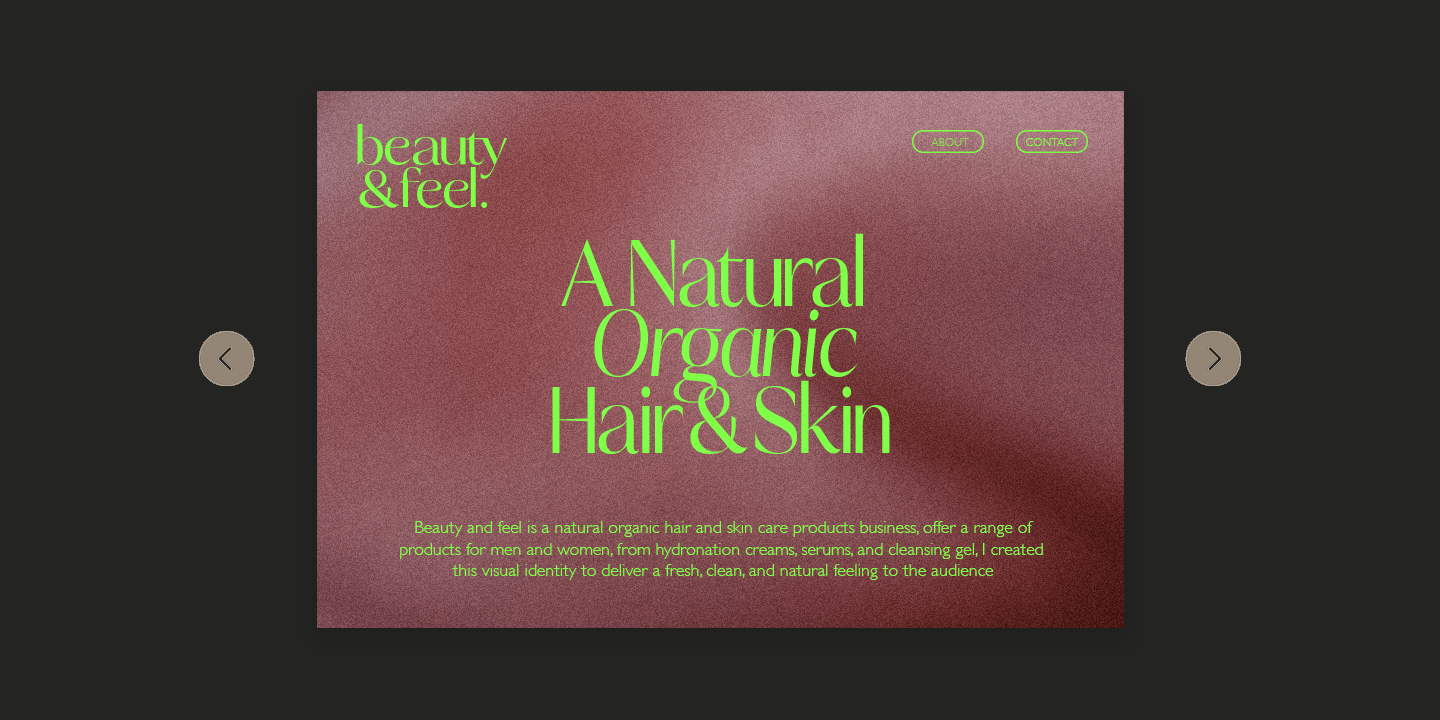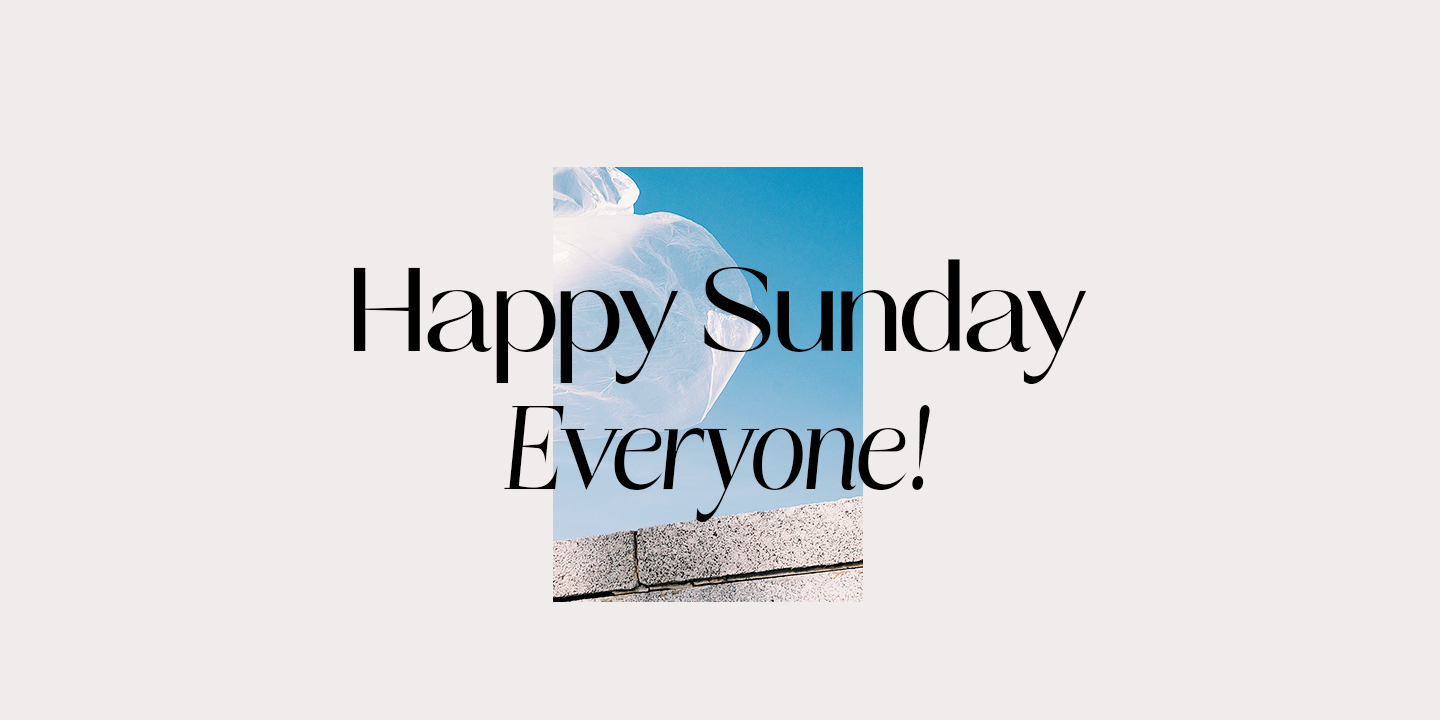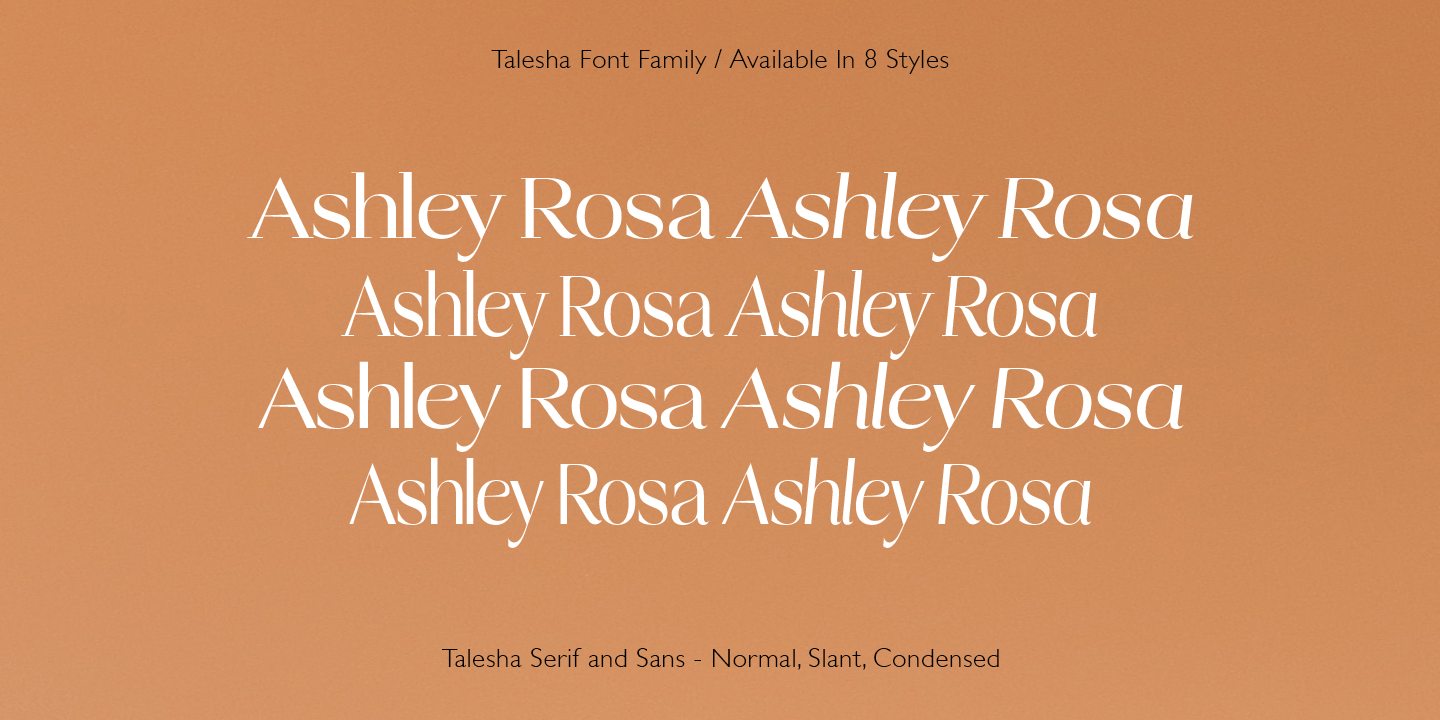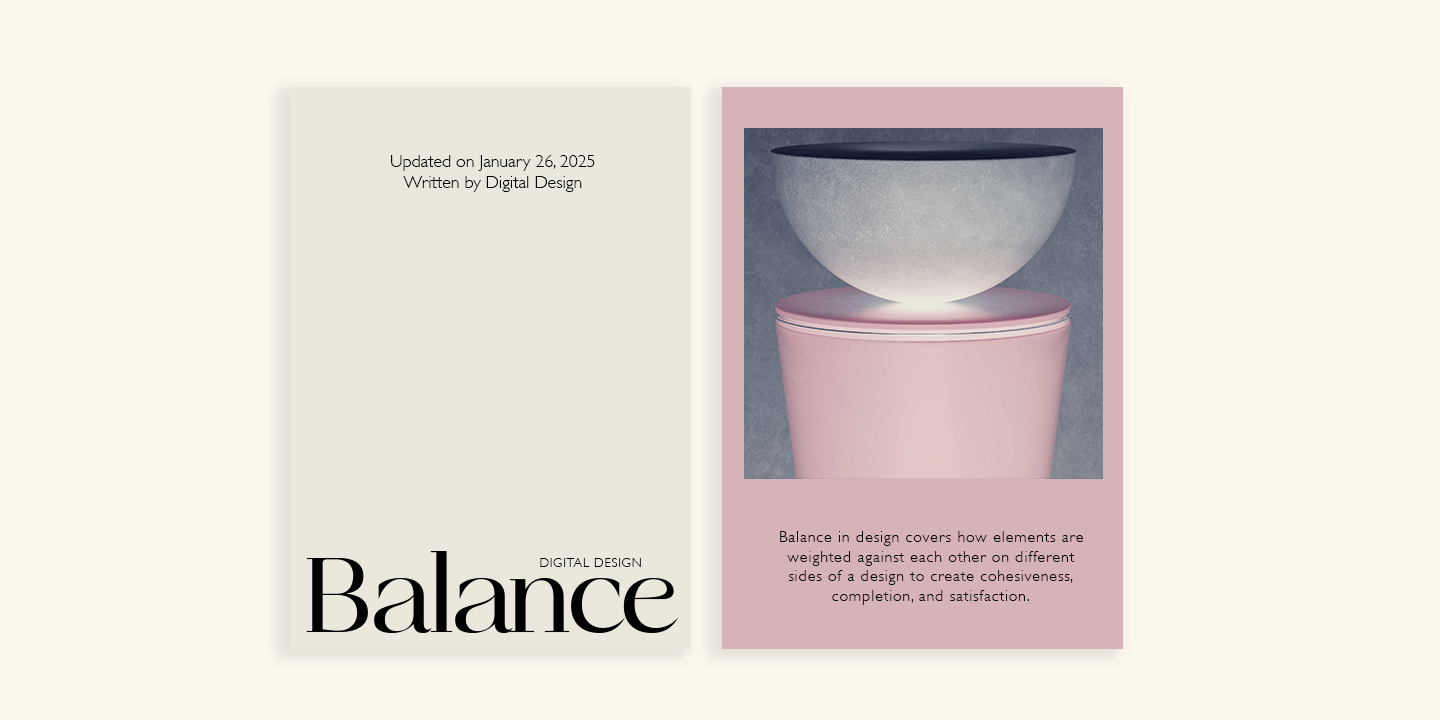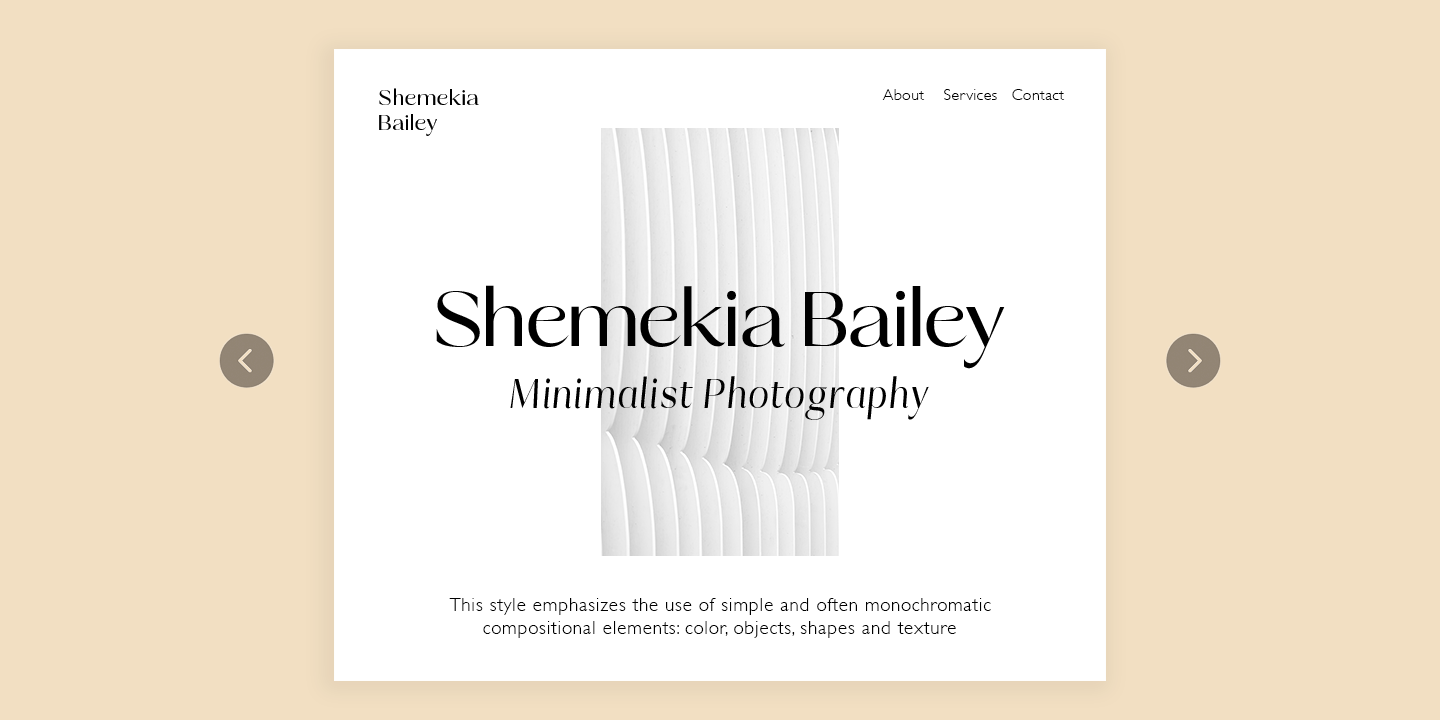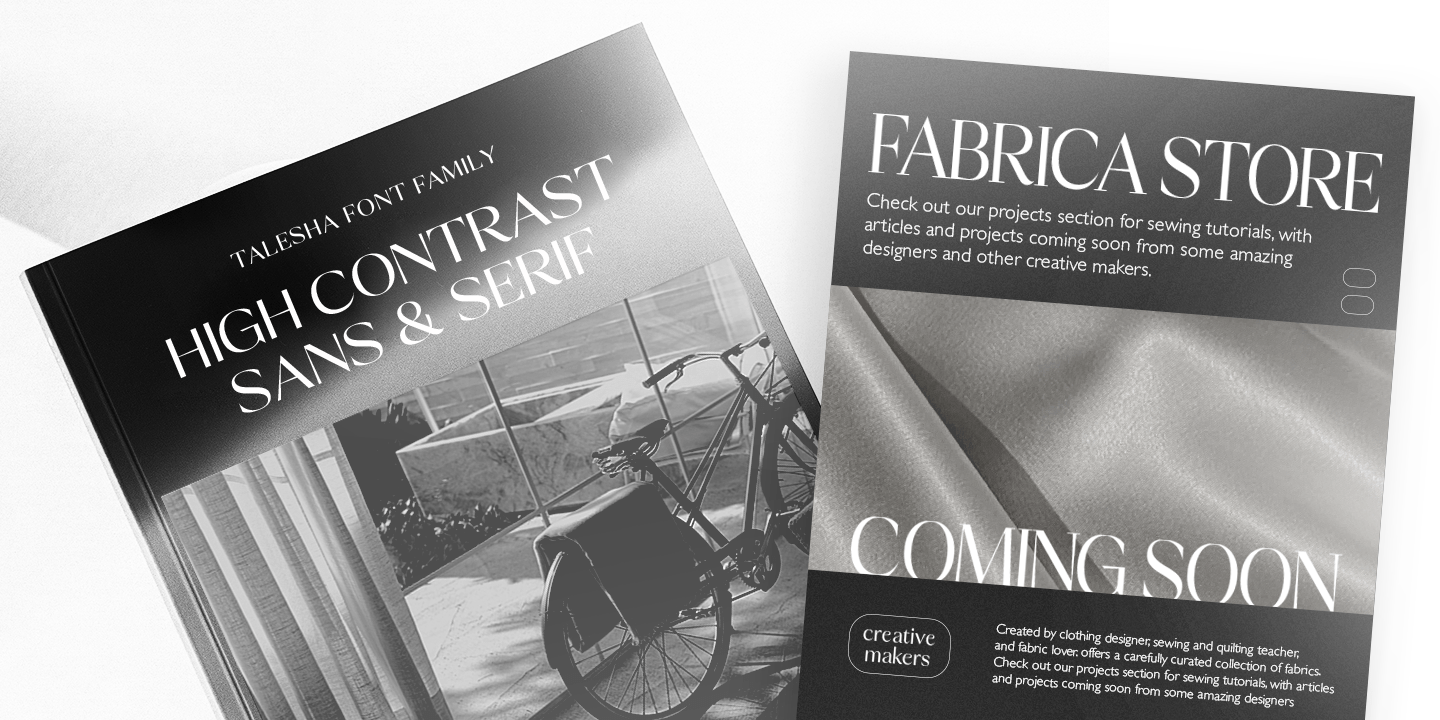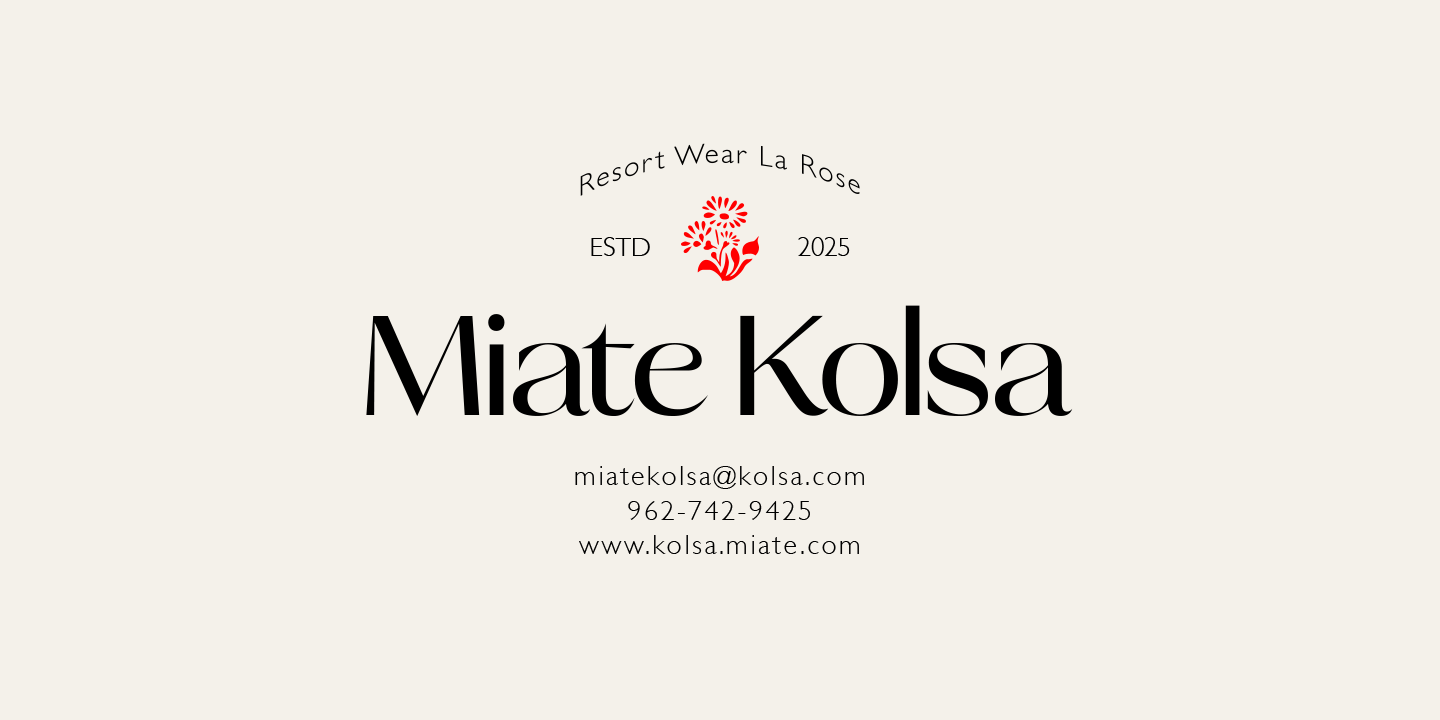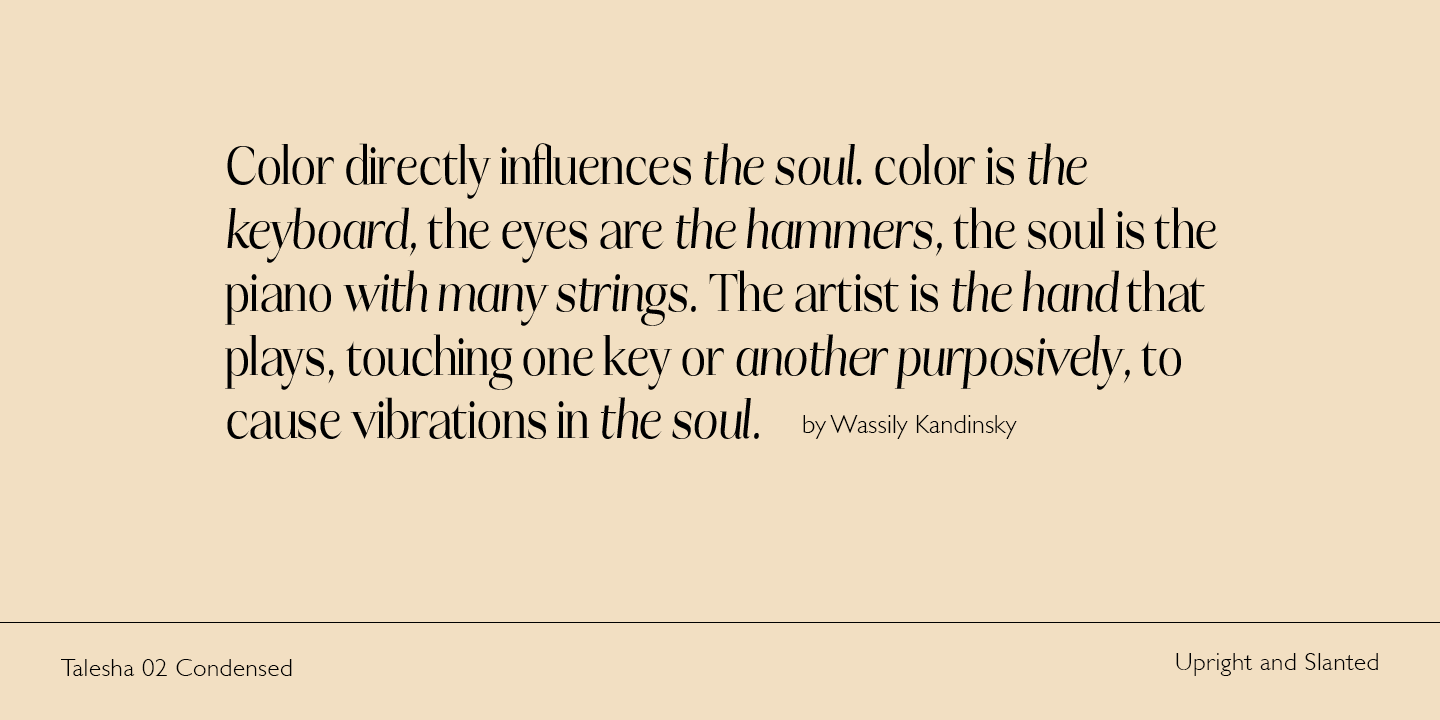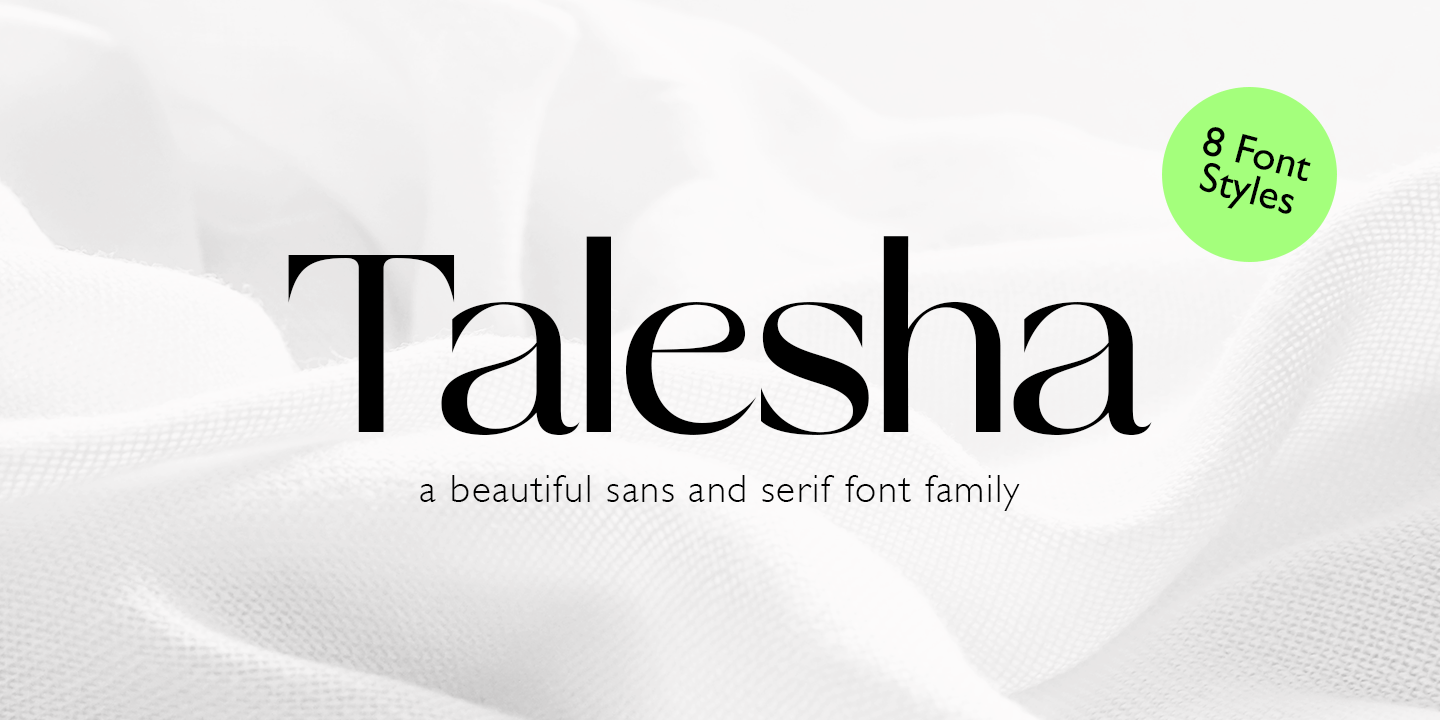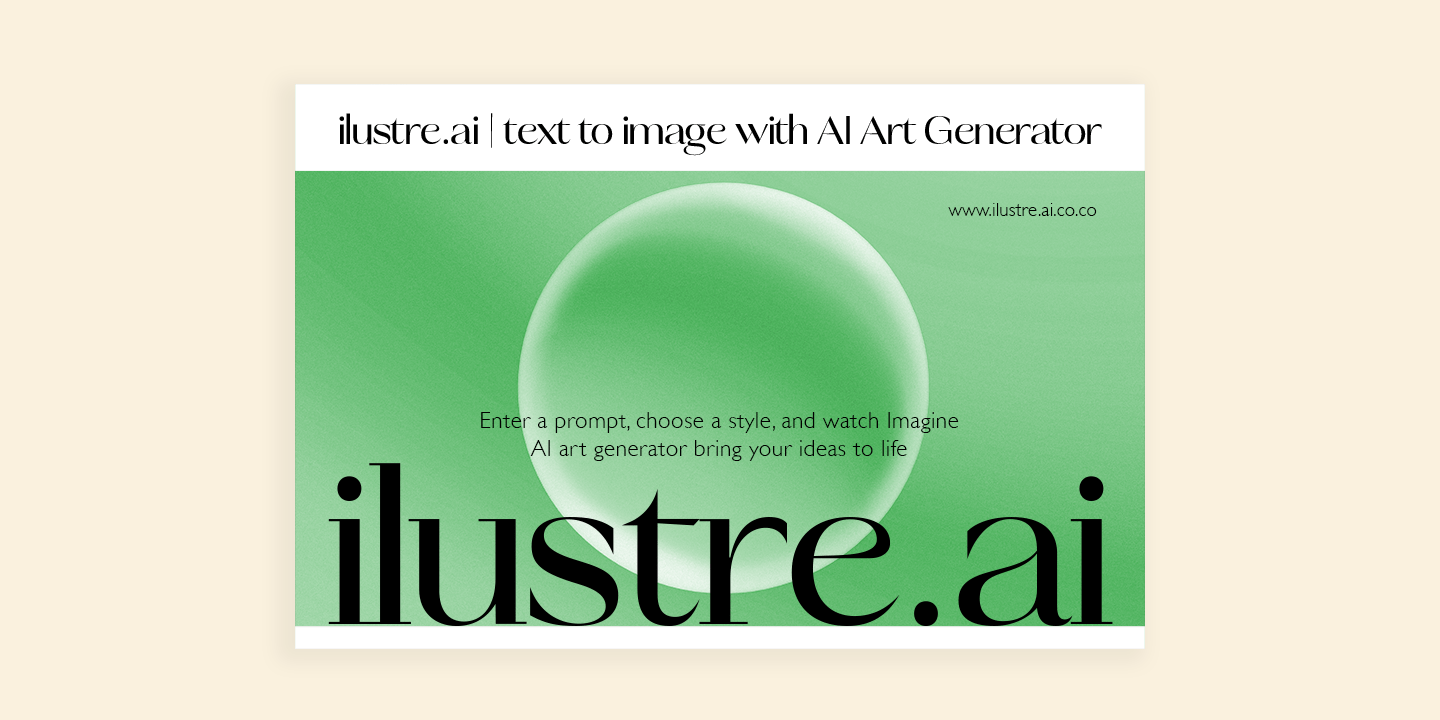
Talesha
About Talesha
Talesha is a high contrast typeface inspired by old style and contemporary fonts. Talesha family consist of 8 fonts: Sans and Serif Font: Normal, Condensed, Slant with 239 glyphs each. Opentype features allow for the implementation of typographic niceties…